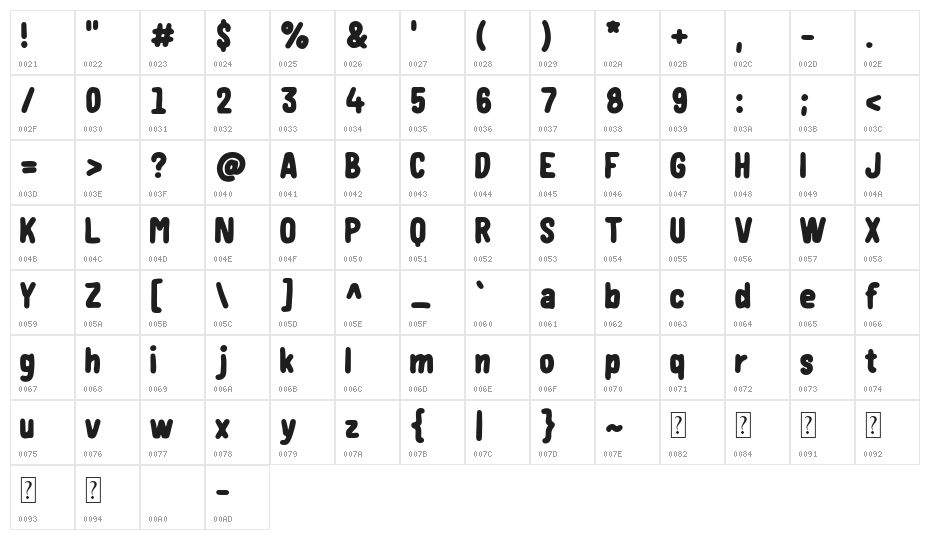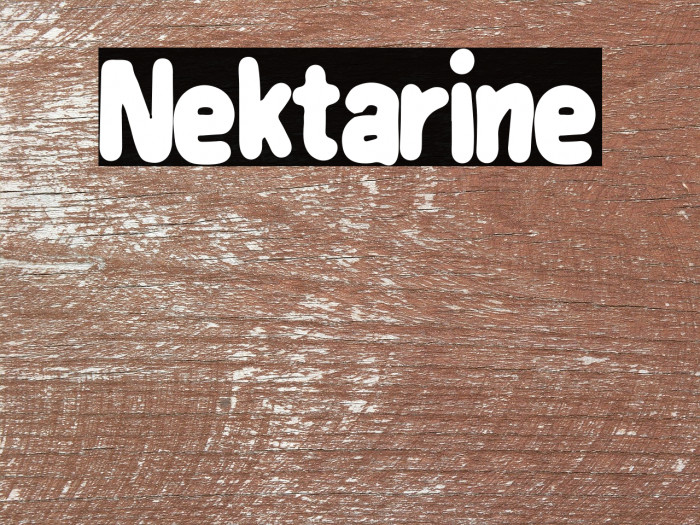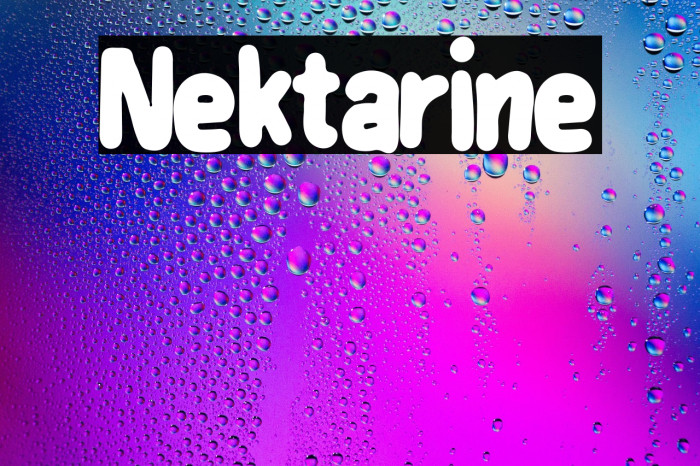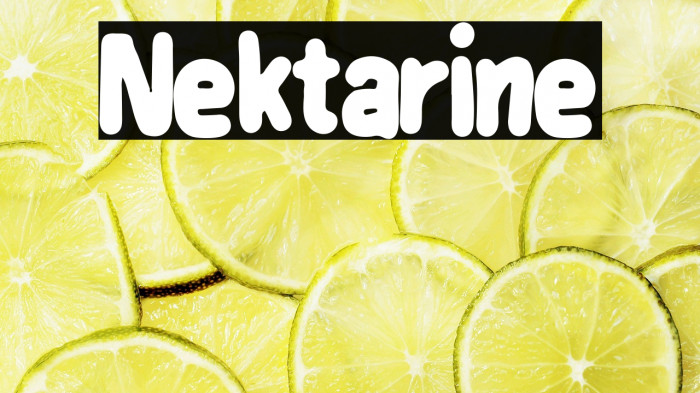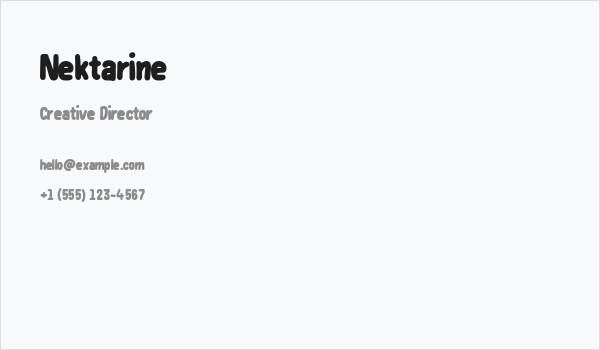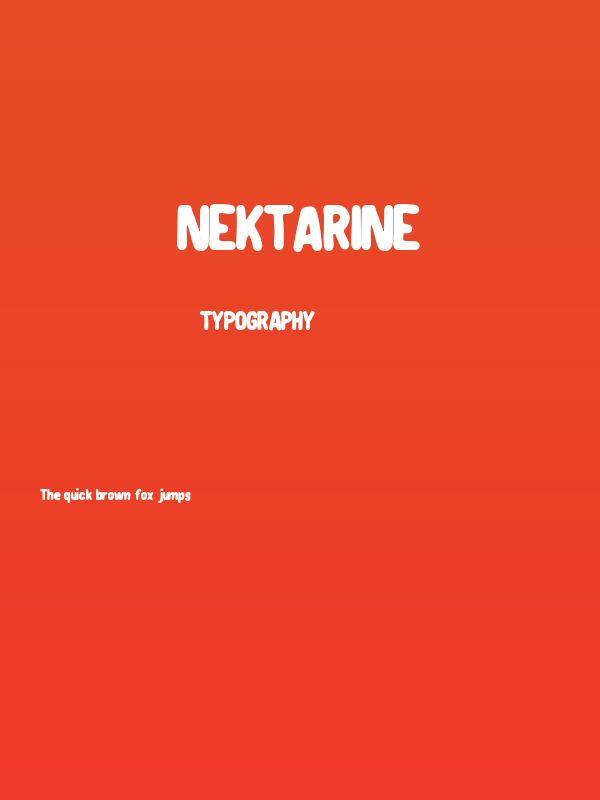
Nektarine Font
Nektarine Description
A bold, playful font with rounded edges and a casual, friendly appearance.
| Overall Style | Playful, Casual |
| Proposed Projects | Children's books, playful branding, casual posters. |